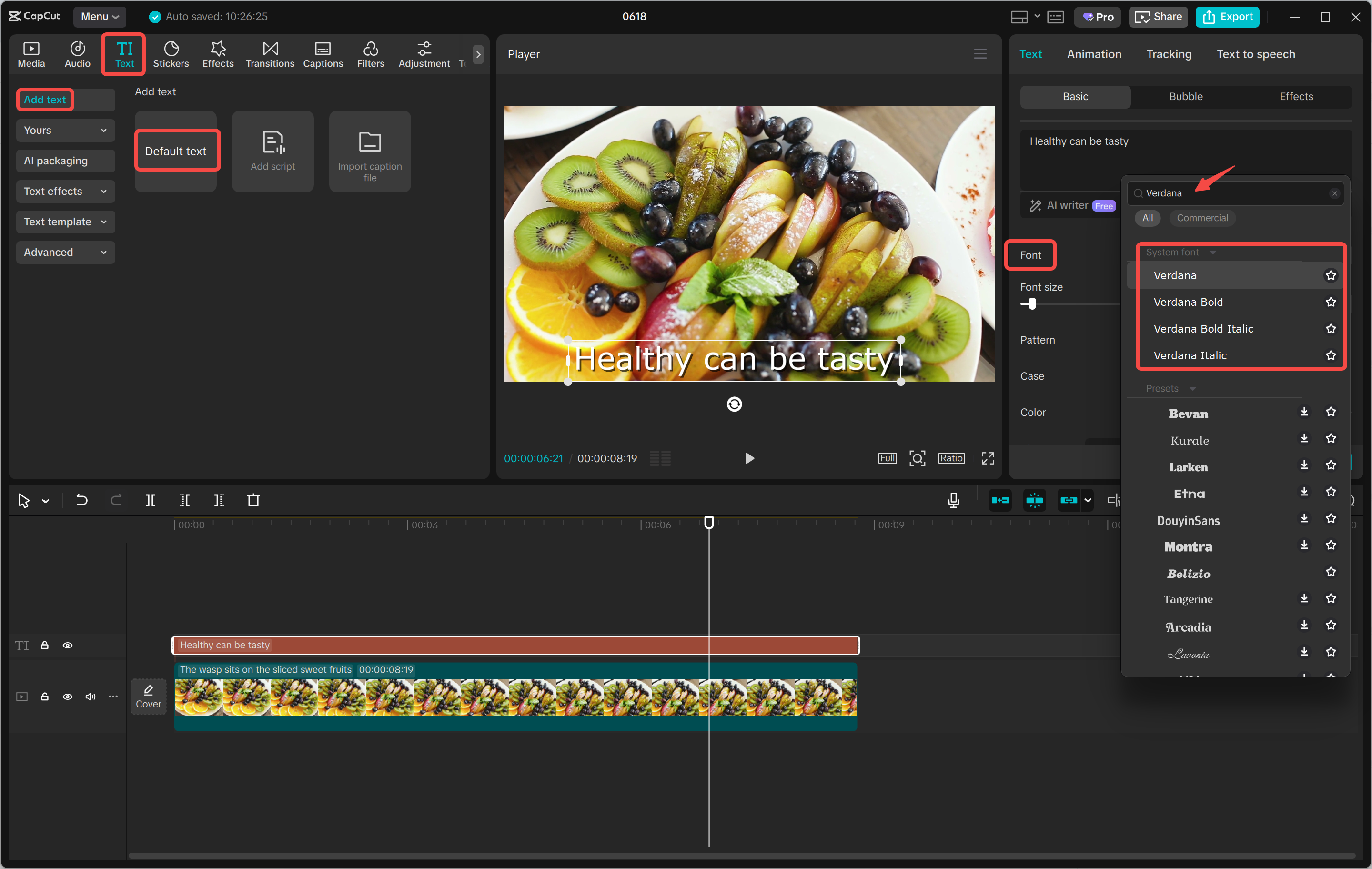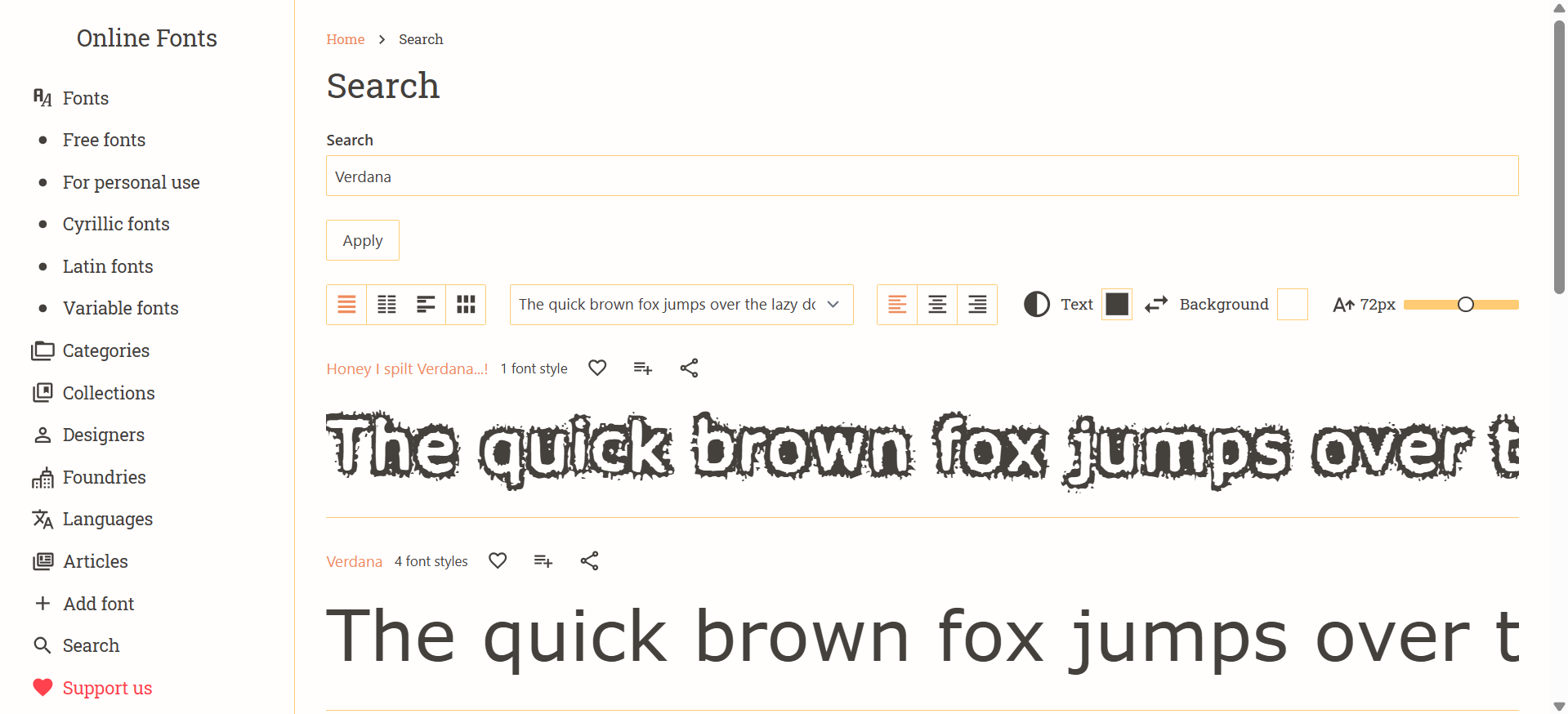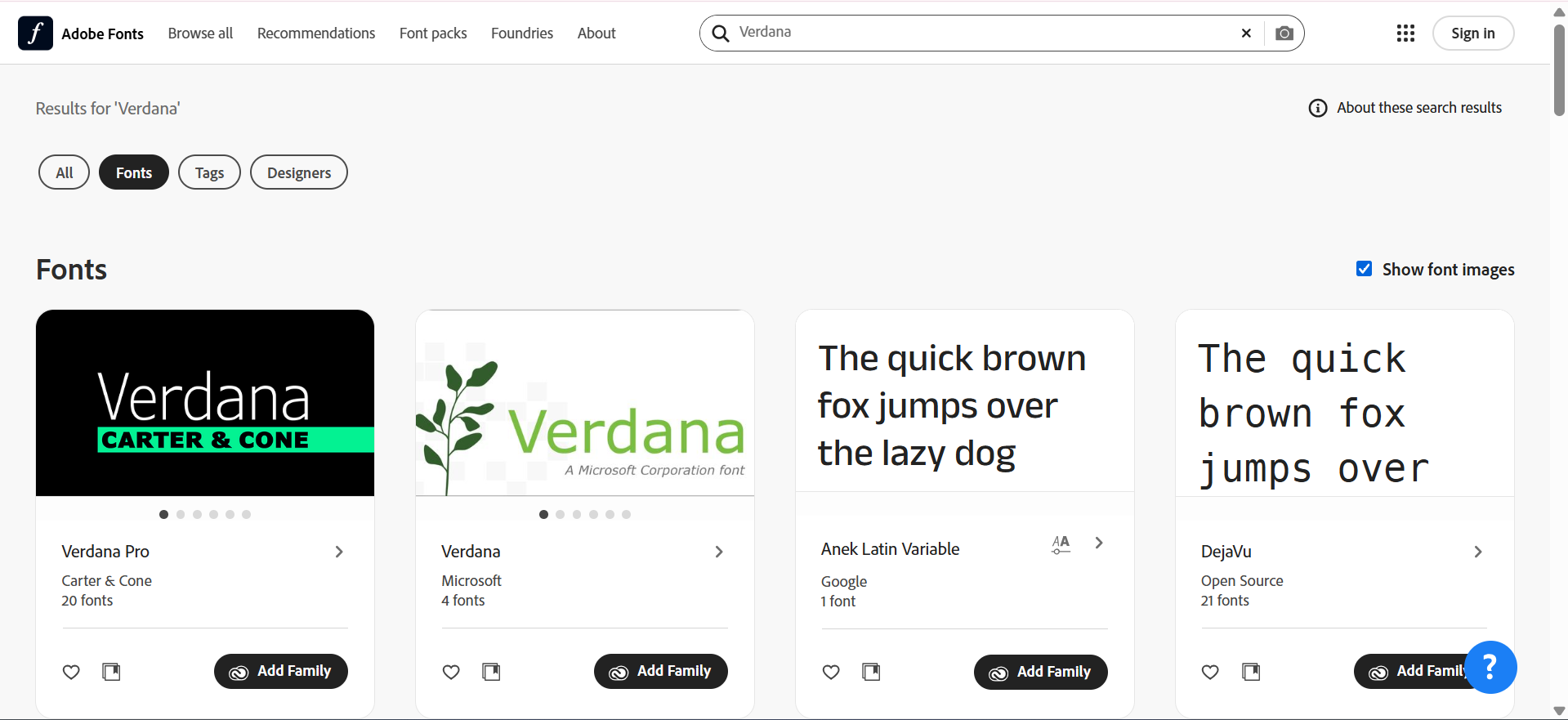
5 Reliable Tools for Getting Verdana Font without Any Cost
Explore 5 effective tools to access the Verdana font without any delays or complications. Simple, straightforward, and ready when you need it. Moreover, easily customize your text with CapCut’s font features for a professional look every time.
Getting the Verdana font without any hassle is important for designers, students, and professionals who value clean and legible typography. Verdana's wide spacing and simple letterforms make it ideal for both digital and print use. However, finding a safe and efficient way to access it can sometimes be tricky.
In this article, you'll find 5 essential tools that make downloading and using the Verdana font quick, easy, and reliable.
Why should you use the free Verdana font
Verdana is one of the most reliable and accessible fonts available. Below are the key reasons why it’s widely used across different types of projects.
• Clear readability
Designed with wide spacing and tall lowercase letters, the Verdana italic font ensures maximum legibility even on small screens. It's perfect for long-form reading, digital interfaces, or any content that prioritizes clarity.
• Professional look
The font’s clean structure and balanced proportions give a sharp, polished feel to any layout. It’s widely used in business documents, reports, and websites that aim to look formal yet modern.
• Versatile design
Verdana works well with other fonts and adapts easily to various design styles, including minimalist, corporate, editorial, and more. It's a safe, stylish choice for both text-heavy and visual projects.
1. What are the best uses for the Verdana font?
Verdana font is best used for websites, documents, and videos where readability is key. It’s ideal for user interfaces, presentations, and any design requiring clarity across devices. To enhance your content with clean, readable text like Verdana, CapCut desktop video editor helps you not only apply the font but also animate and style it for eye-catching results.